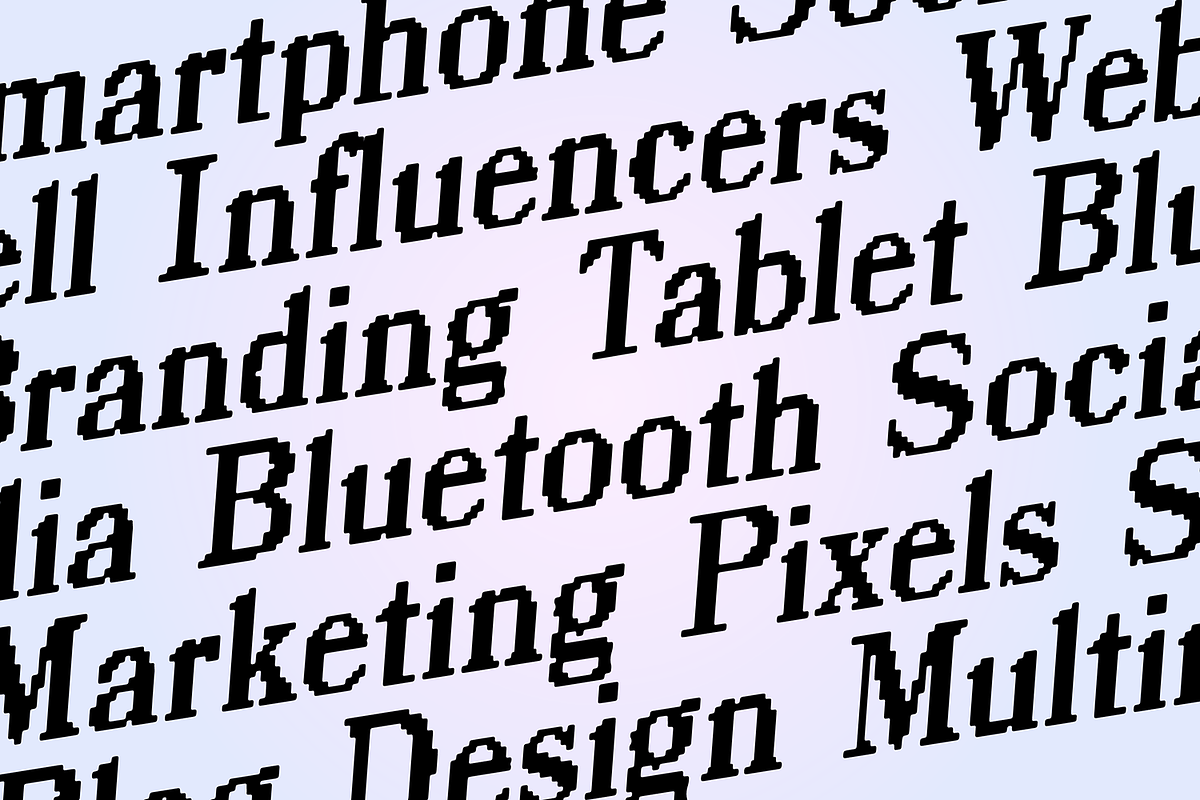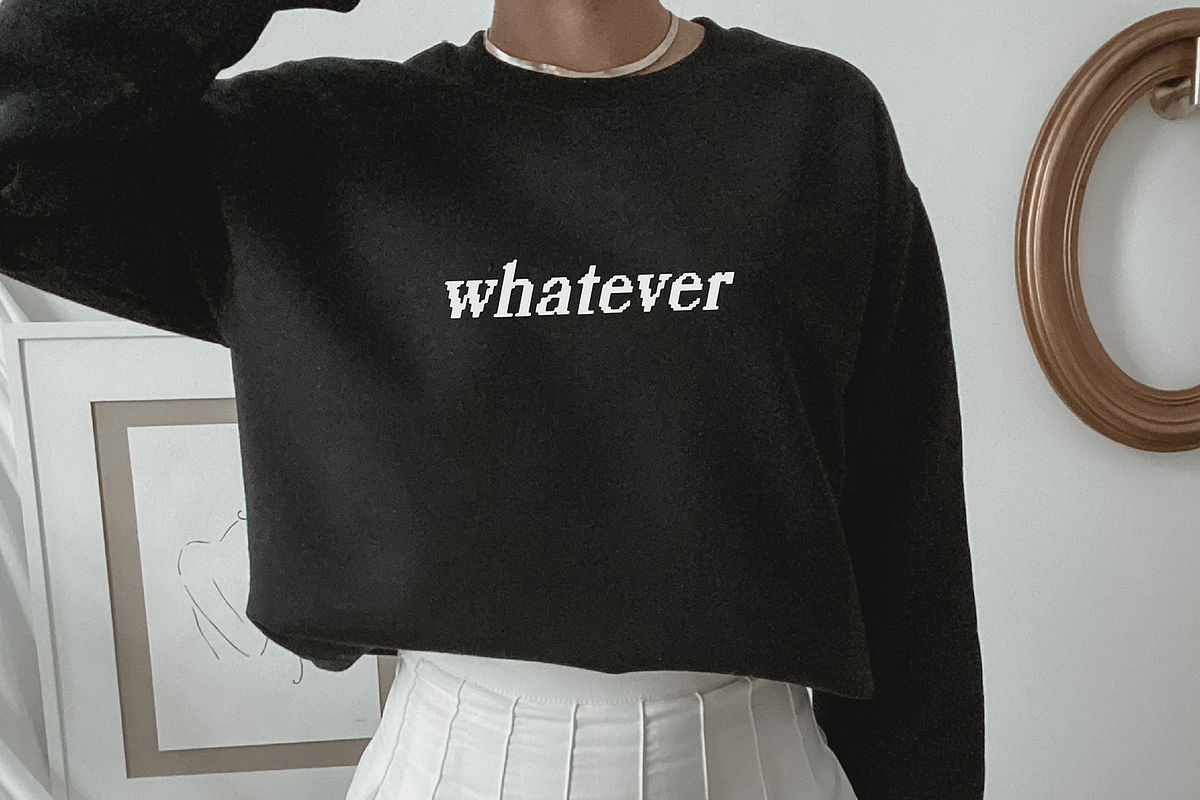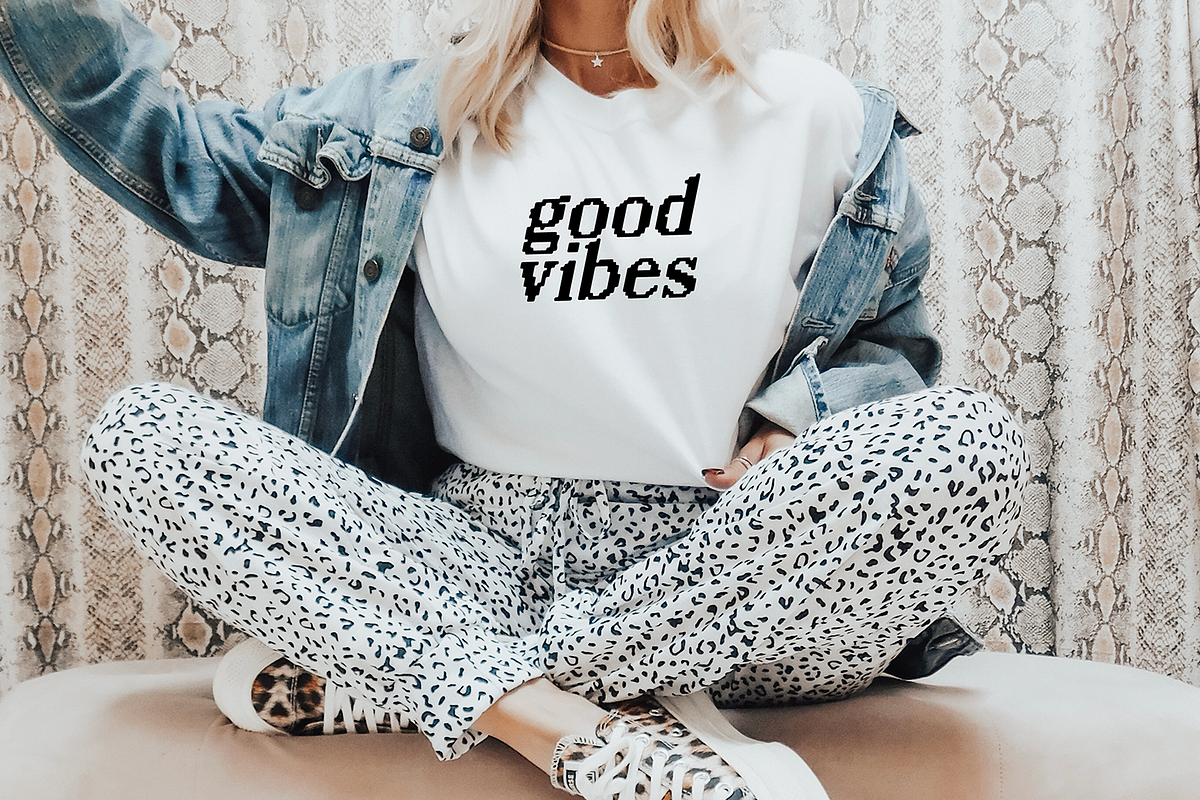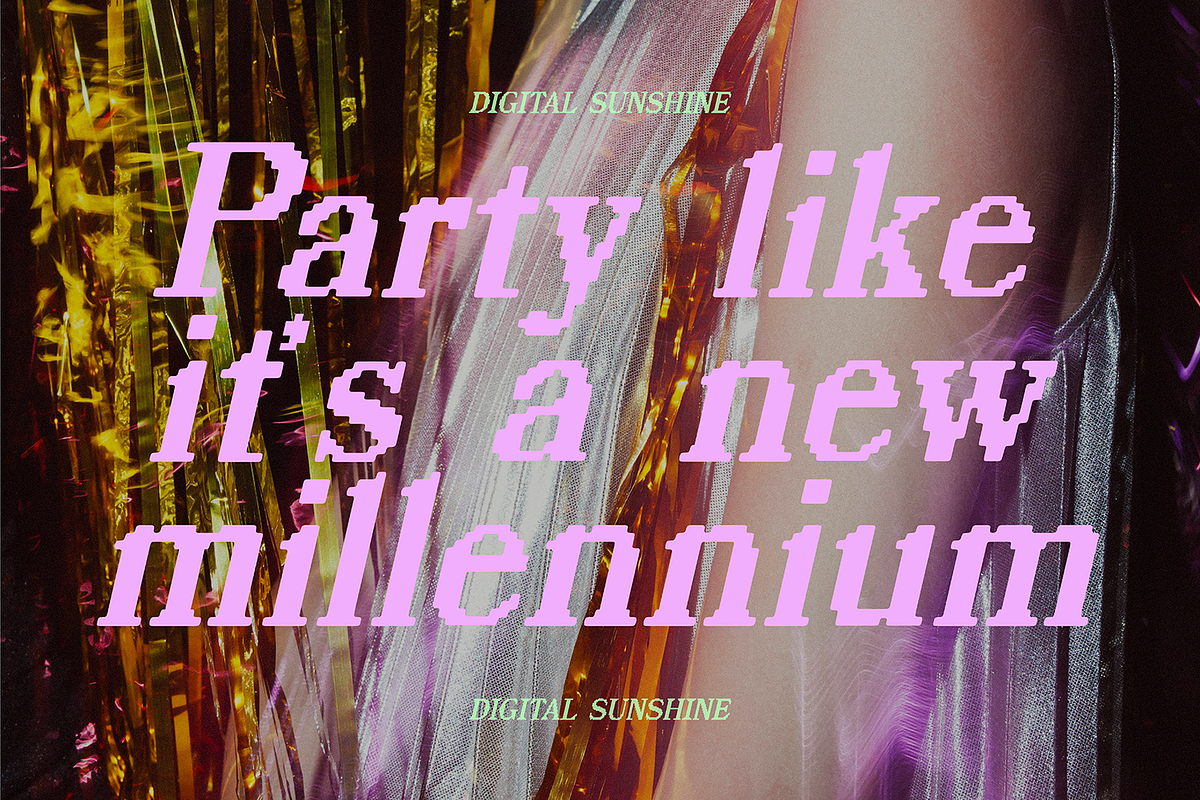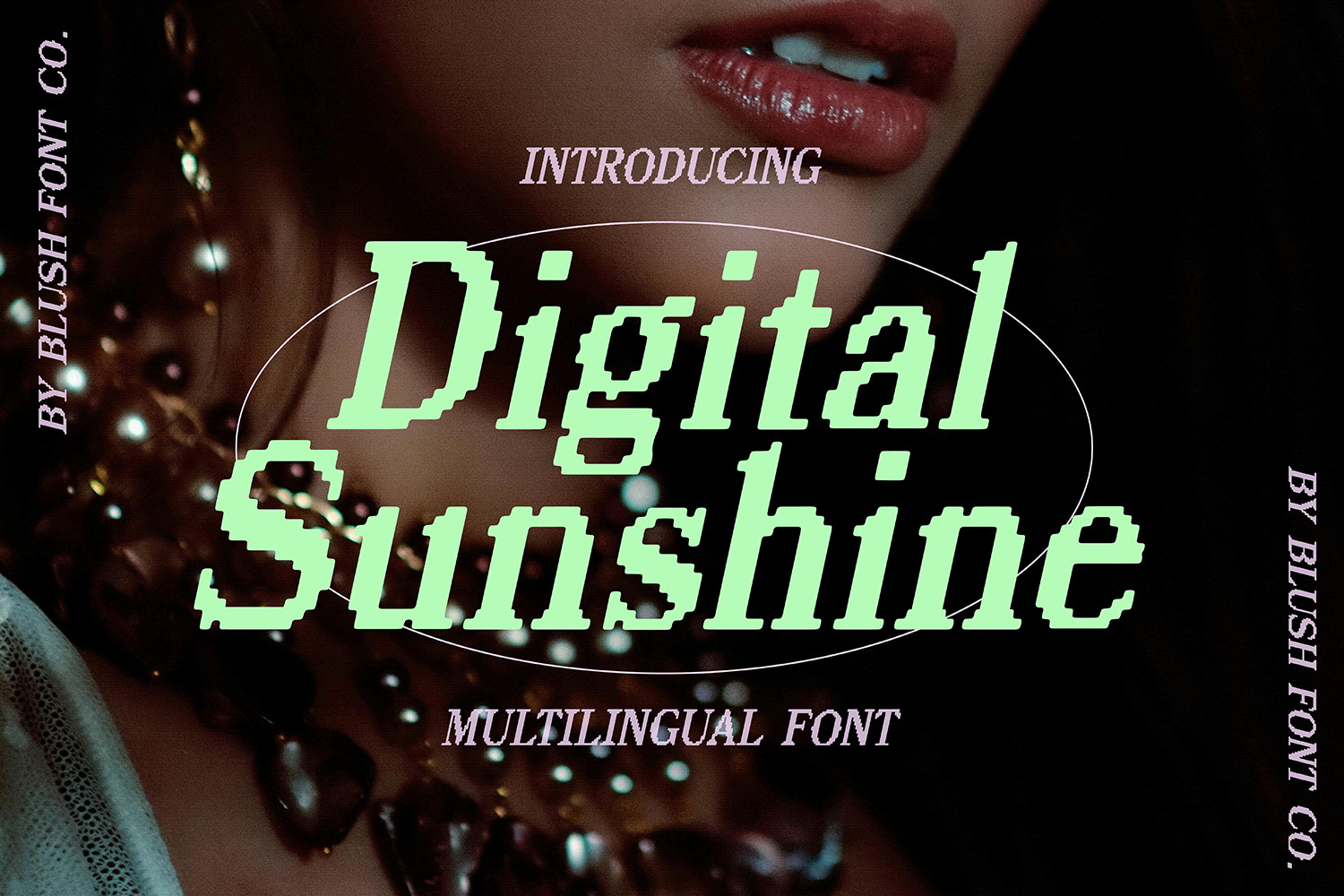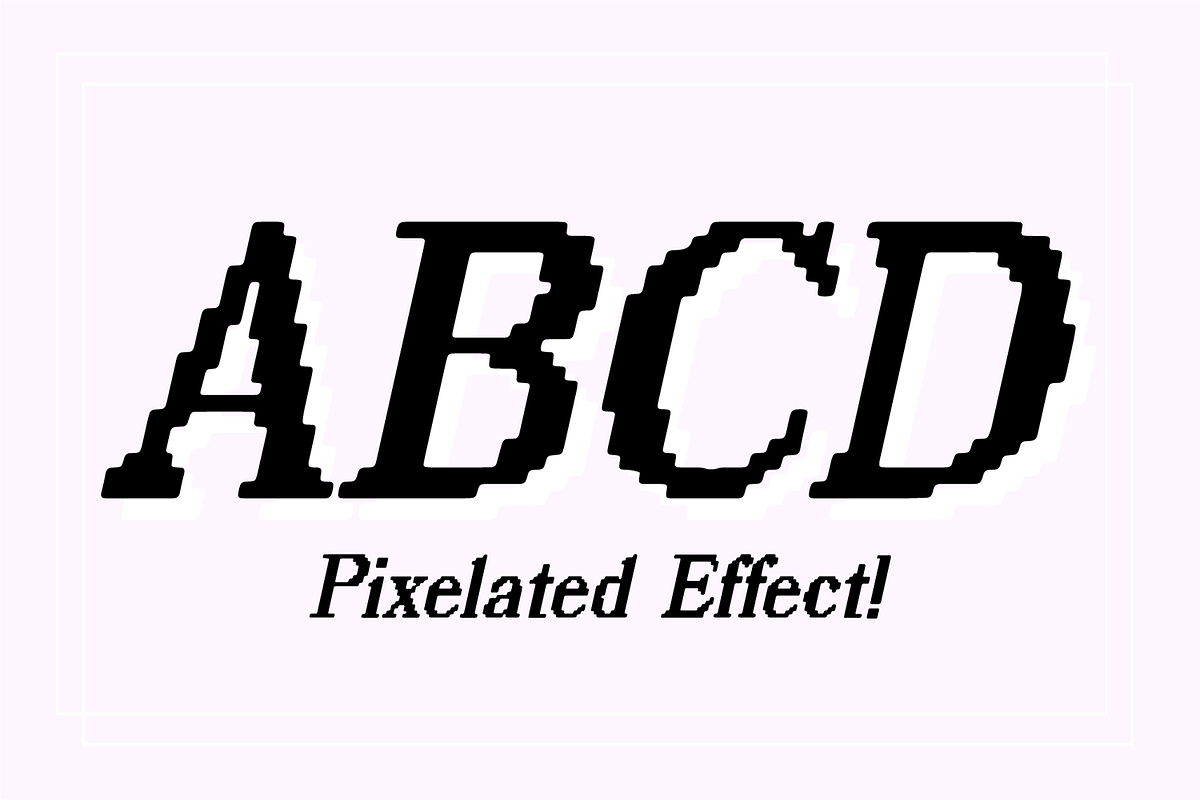
Digital Sunshine Pixelated Y2K Font
"Digital Sunshine" a pixelated serif font.
Multilingual support.
(This font is named "Mesmerize" in Cricut Design Space)
This font is a unique pixelated display font that is perfect for your crafty projects. Use it for branding, invitations, and more! Upper and lowercase glyphs, numbers, punctuation marks, and intl characters.